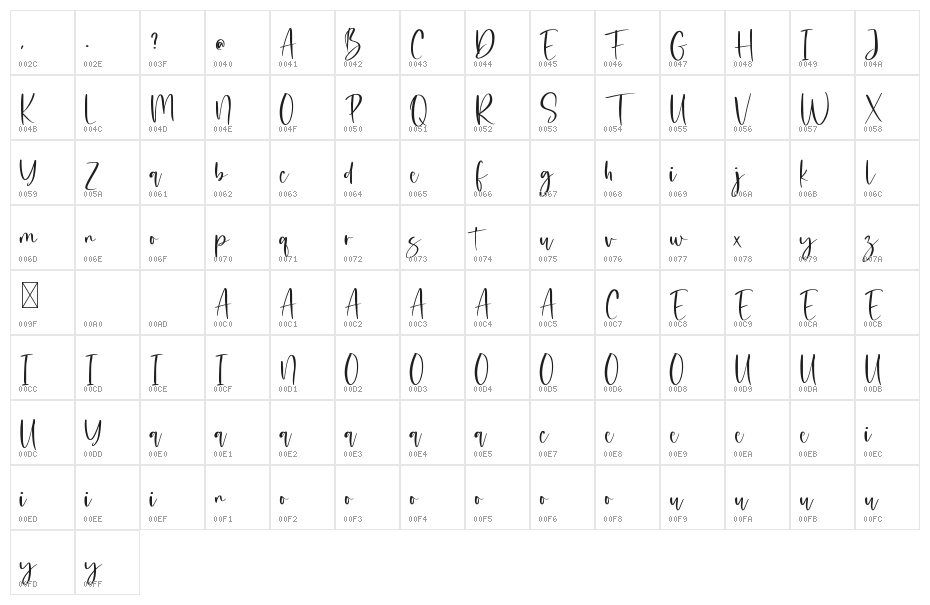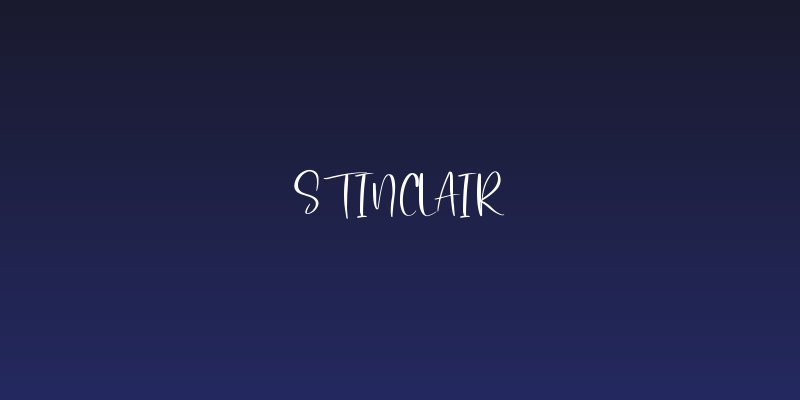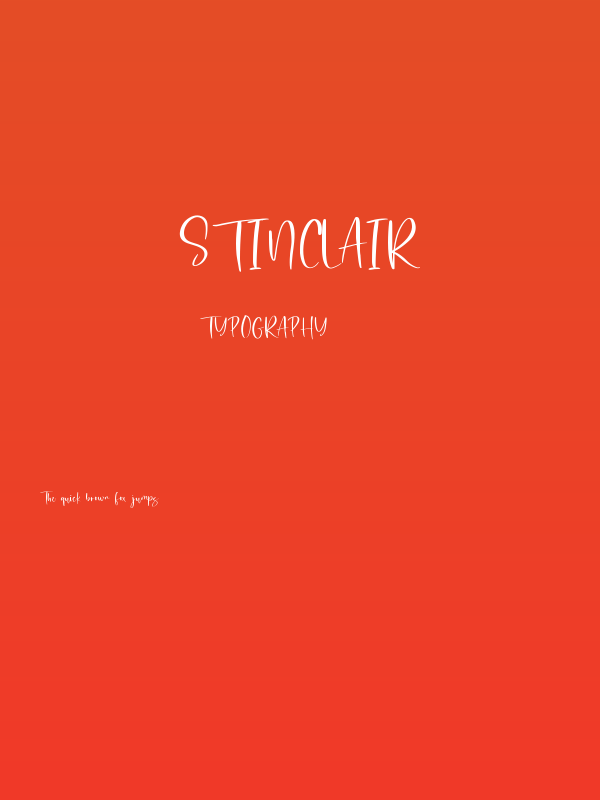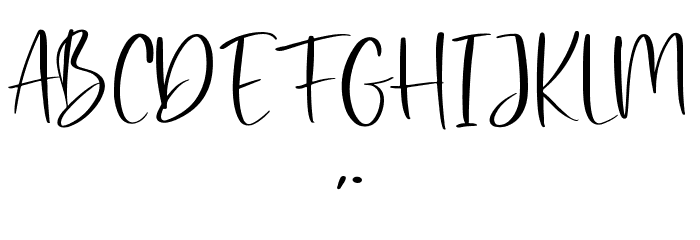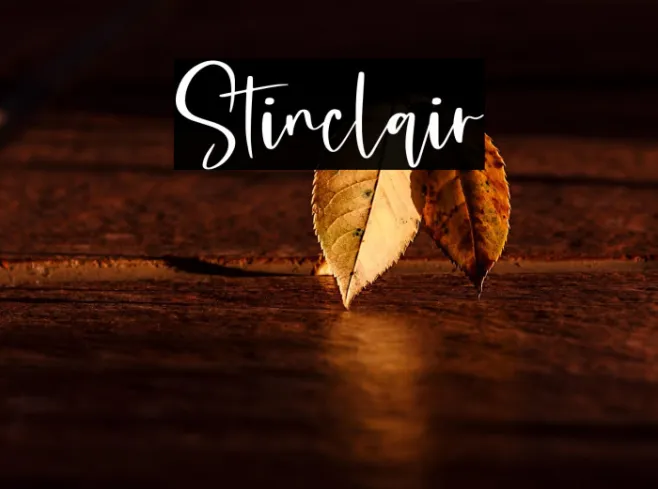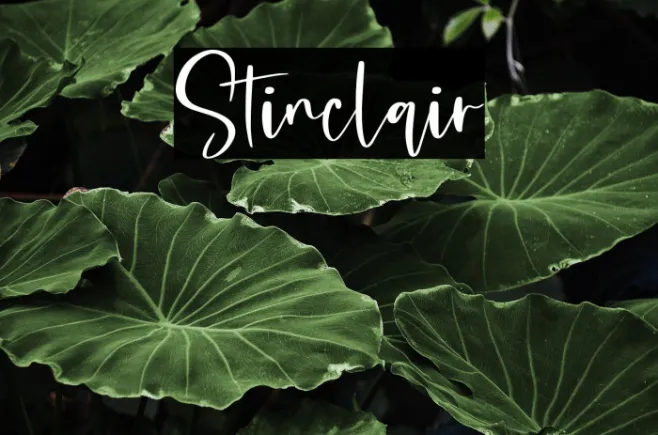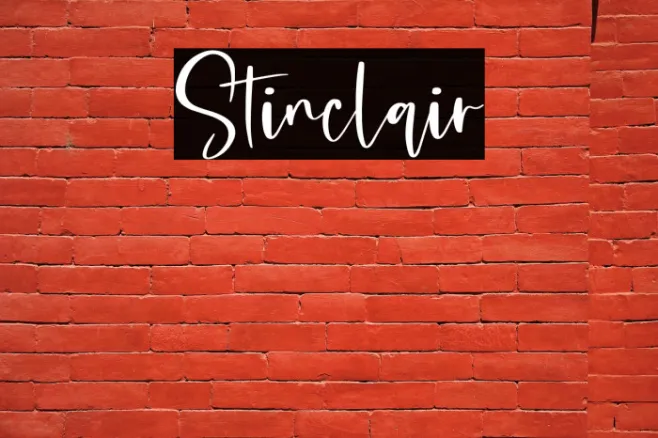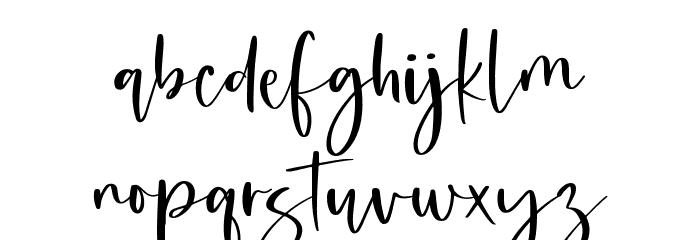
Stinclair Font
Stinclair Description
This font features a lively and expressive handwritten style, characterized by its fluid and dynamic strokes. The uppercase letters are bold and slightly elongated, giving a sense of movement and energy. The lowercase letters maintain a consistent flow, with some letters featuring unique loops and swirls that add a playful touch. The overall appearance is both elegant and casual, making it suitable for a variety of creative projects. The font's design is well-balanced, with a moderate contrast in stroke thickness that enhances readability while maintaining its artistic flair.
| Proposed Projects | Ideal for greeting cards, invitations, branding, and social media graphics. |